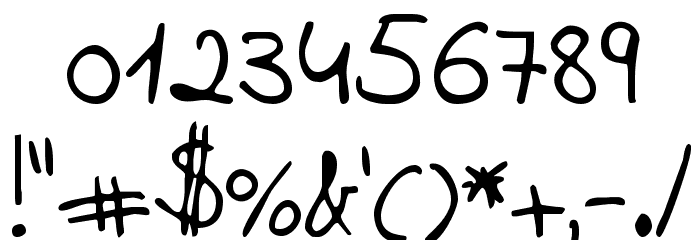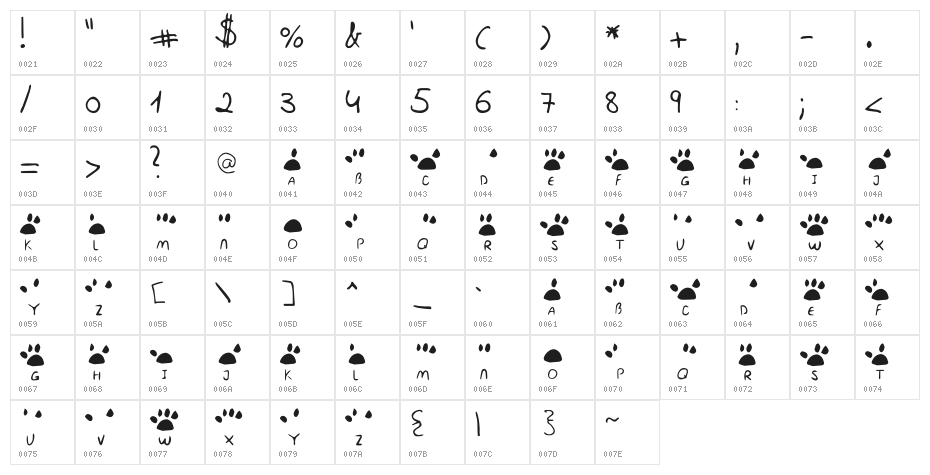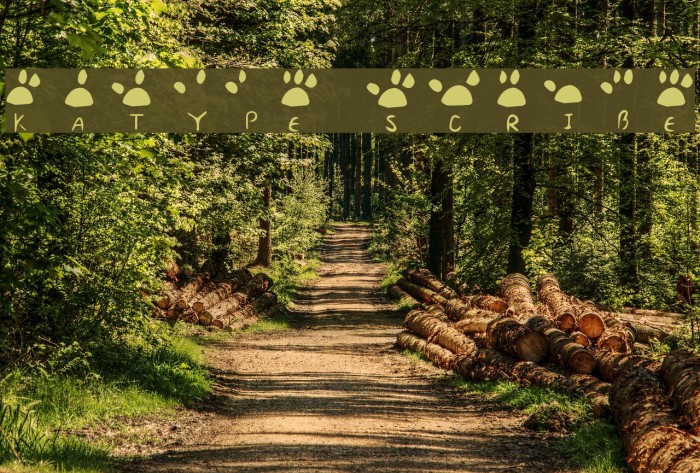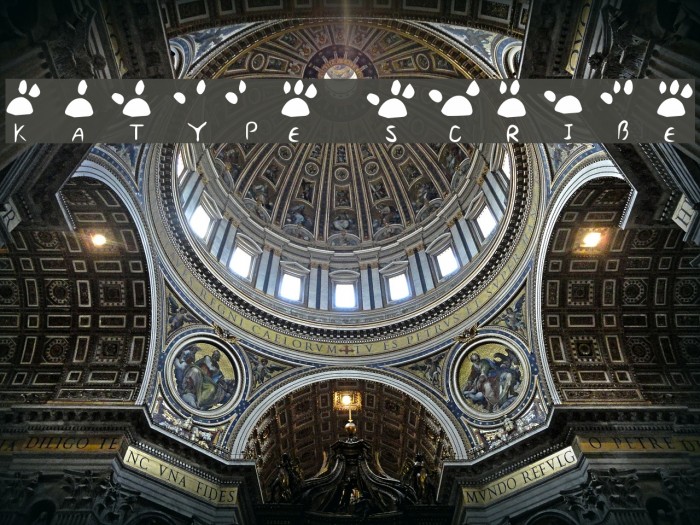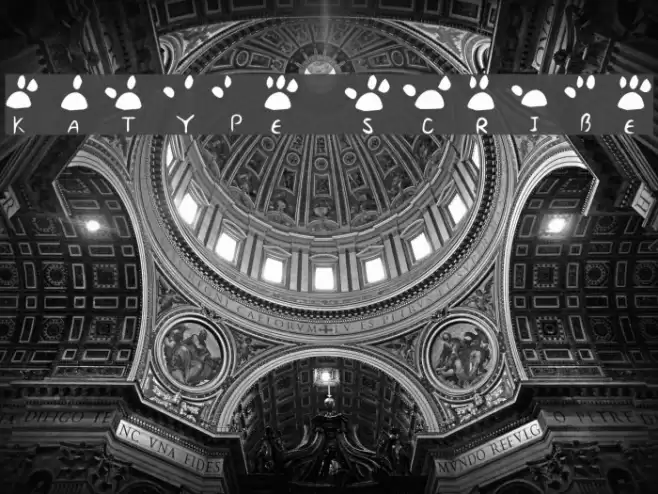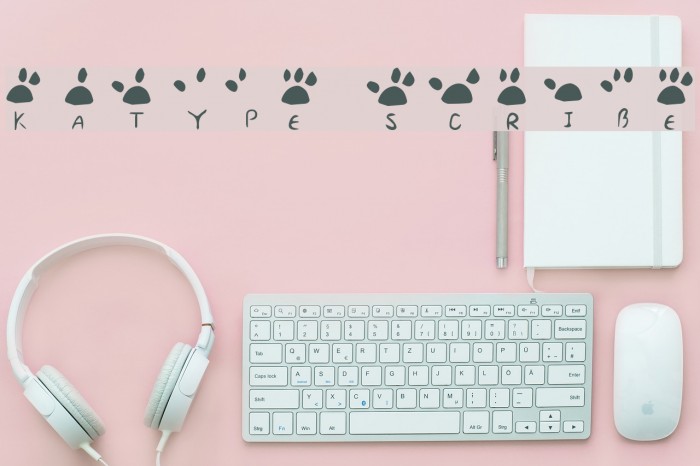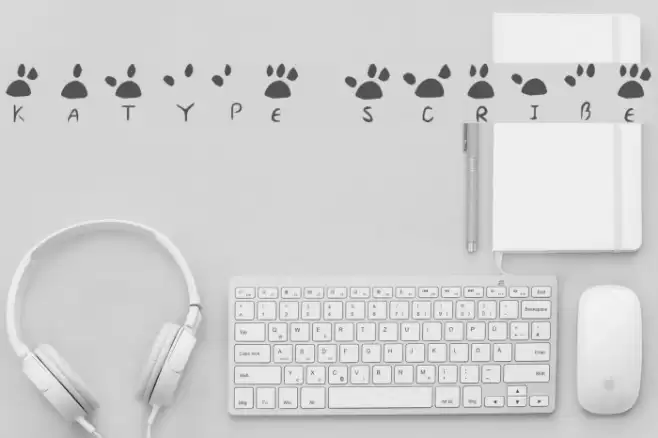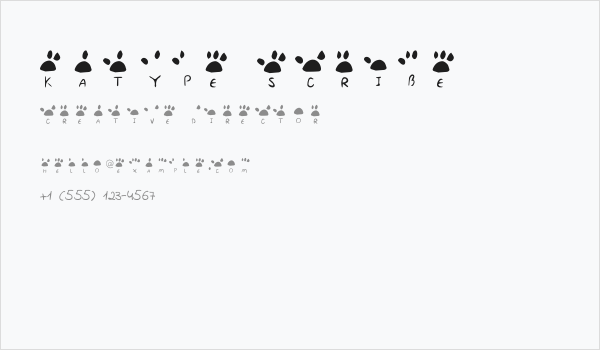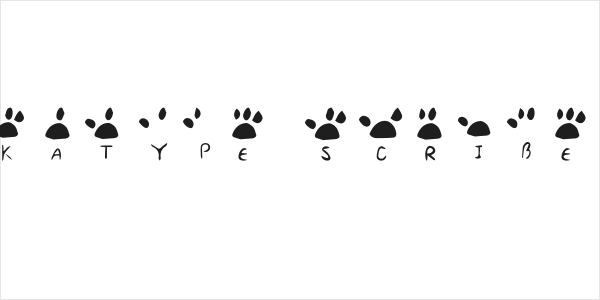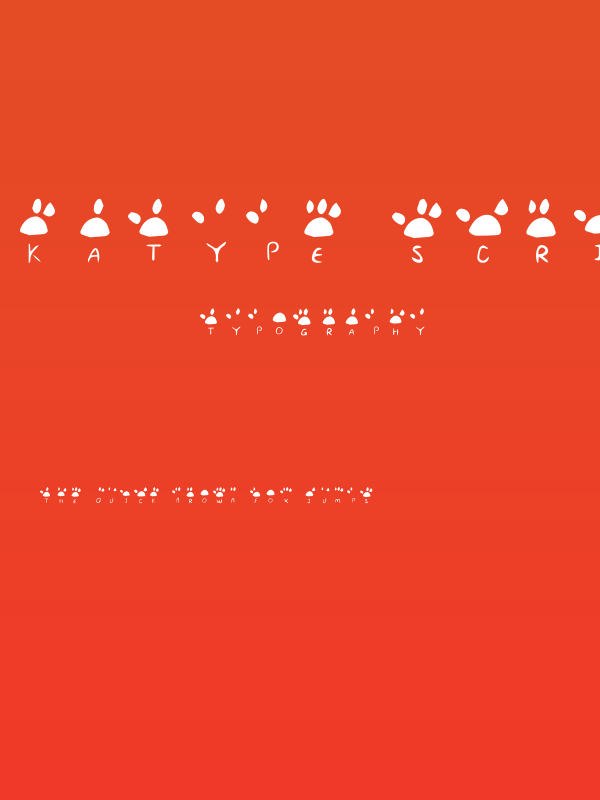
katype scribe Font
katype scribe Description
This playful and whimsical font features a unique design where each character is accompanied by a paw print, creating a charming and friendly appearance. The letters are rounded and slightly irregular, adding to the casual and informal feel. The numbers and special characters maintain this playful style, making the font suitable for creative and fun projects. The overall look is reminiscent of handwriting, with a touch of personality and warmth. This font is perfect for projects that aim to convey a sense of joy and friendliness.
| Overall Style | Whimsical, Playful |
| Proposed Projects | Ideal for children's books, pet-related branding, playful invitations, and greeting cards. |